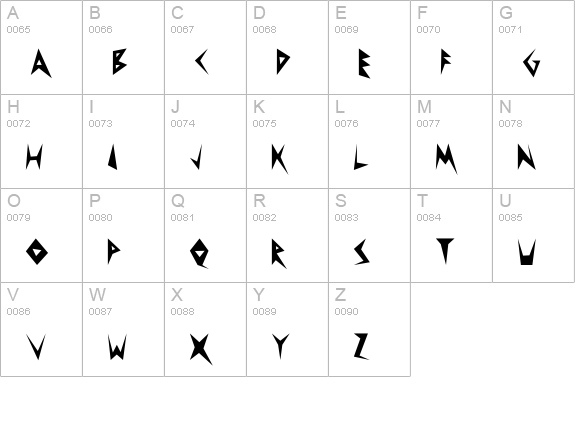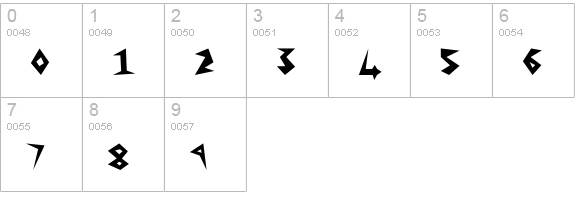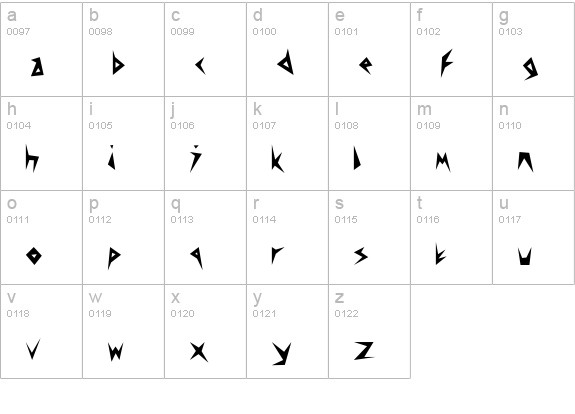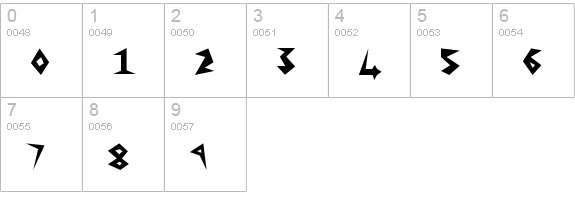
Introducing Anger font, a bold and expressive typeface designed to convey raw emotion and intensity. This unique font is perfect for making a statement and adding a touch of passion to your projects. With its sharp edges and powerful presence, Anger font demands attention and leaves a lasting impression. What makes Anger font even more appealing is that it is available for free download at FontsMarket.com. Yes, you read that right - you can easily access this striking font at no cost and use it to elevate your designs. So go ahead, unleash your creativity and let Anger font speak volumes in your next project.